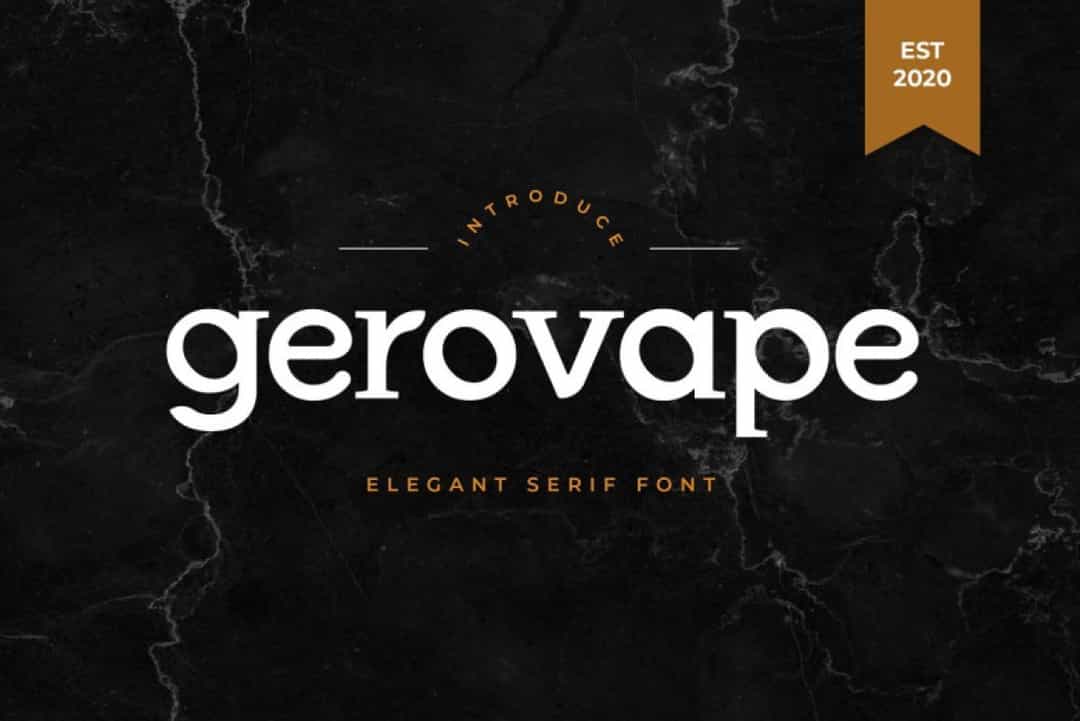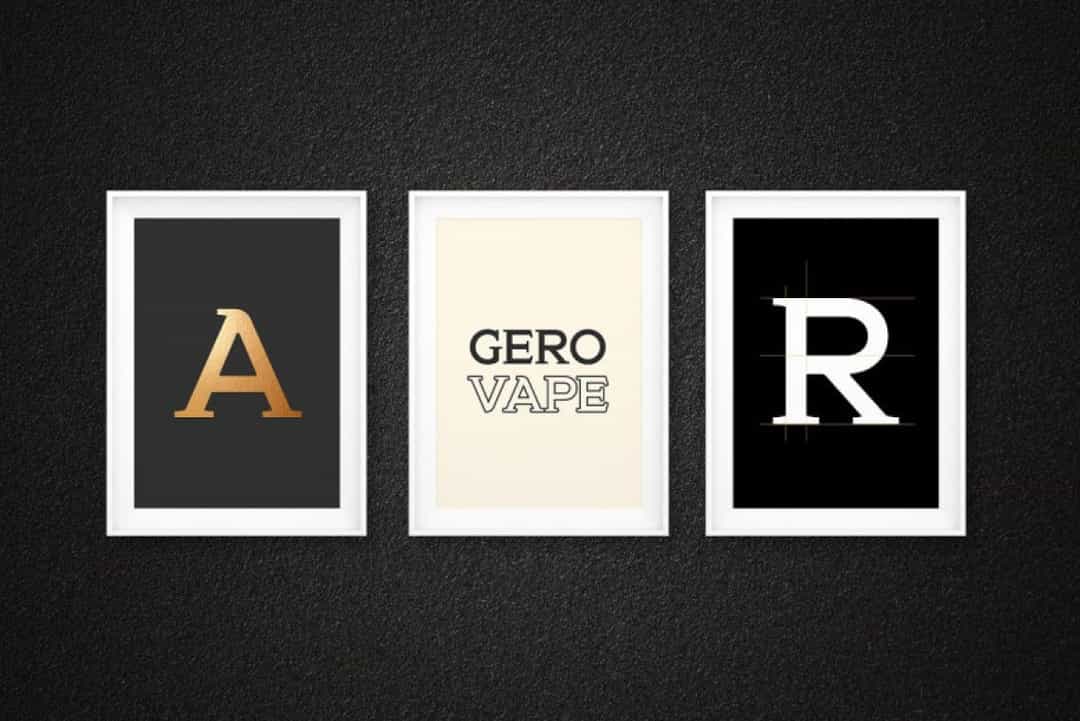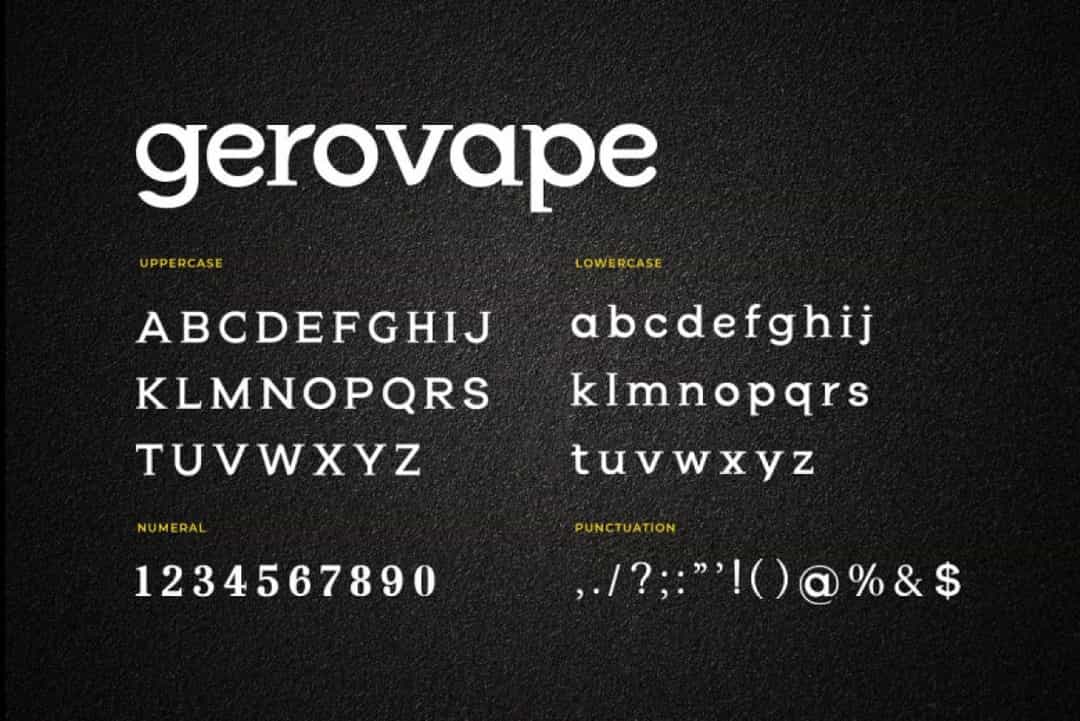
Gerovape Serif Font is our latest offering and features distinctive curves and cut-ins that make it one of the more recognizable caps fonts available today. Perfect for branding fashion-related or editorial designs displaying both masculine and feminine characteristics.